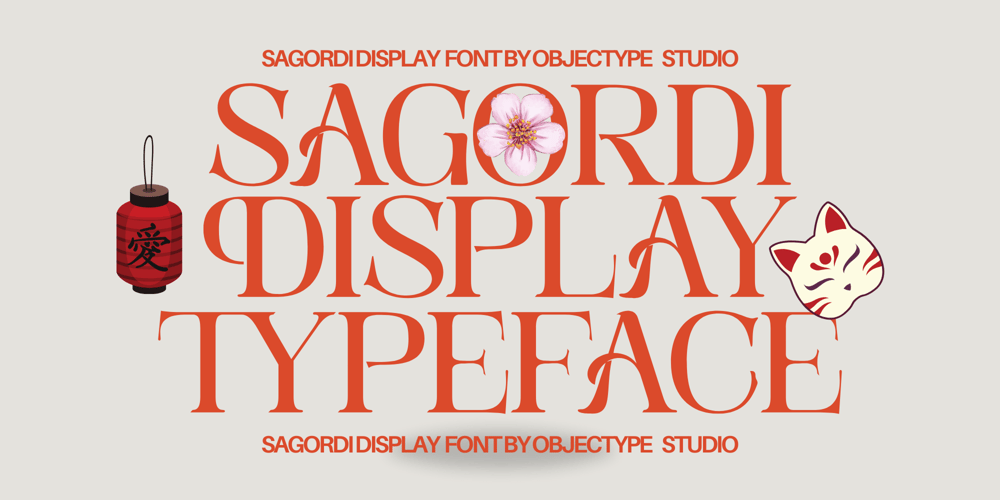
Sagordi Font Family was designed by Candi Erwanto and published by Objectype. Sagordi contains 1 styles and family package options. Sagordi is a font that displays a strong and modern style. With clean lines and bold shapes, Sagordi is perfect for use in various applications, ranging from logo design to marketing materials, digital publications, and more.This font is designed with careful details to ensure excellent readability at various sizes and resolutions. Sagordi is a great choice for designers who are looking for a flexible and adaptable font that can match various design styles.